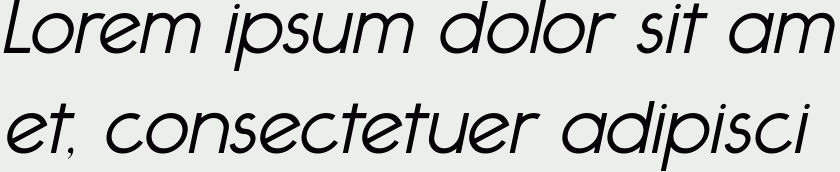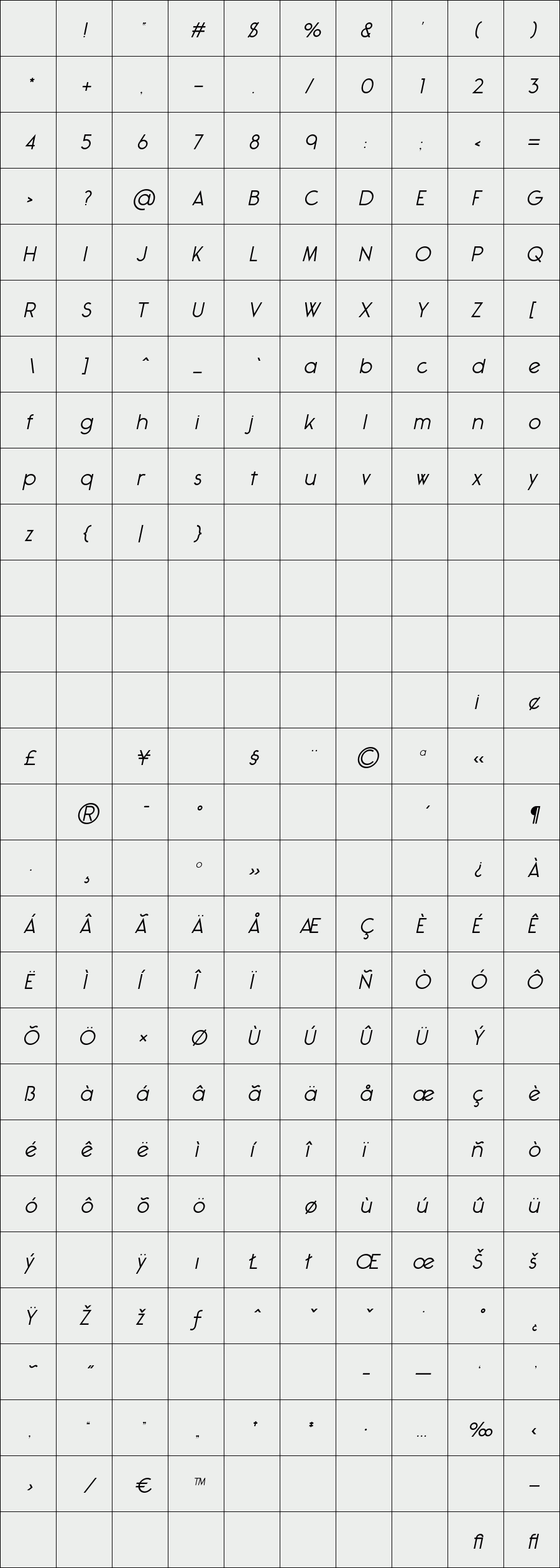
Ealing
/ Ealing regular italic
The Ealing font is a clean, geometric design inspired by the historic modular designs of the 30's. With a large weight contrast, this font ranges from a refined light cut to a chunky, black style.